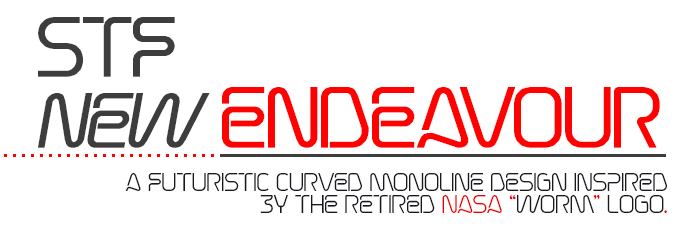
Круто! А почему без кириллицы?
@Dmitriy Sychiov (Sychoff), cyrillic is planed and will be soon.
like the wormy look, reminds me of the old NASA logotype
Indeed very NASA worm logo-like, I did some similar fonts B-)